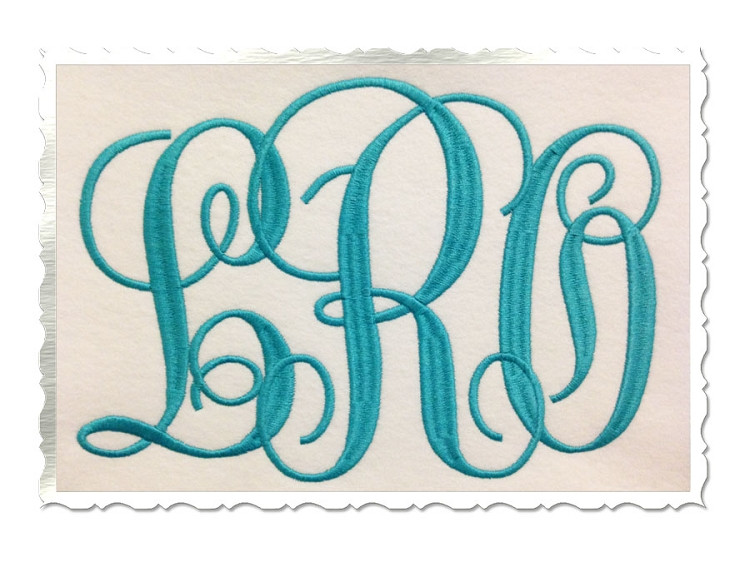
Large Fancy Curly Monogram Machine Embroidery Font
4 Inch Alphabet - Satin Stitch
5 Inch Alphabet - Satin Stitch
6 Inch Alphabet - Satin Stitch
The wider areas of the columns are a split satin stitch - you can see the small dip in the photo.  The photo shows a 5" center letter with 4" side letters.